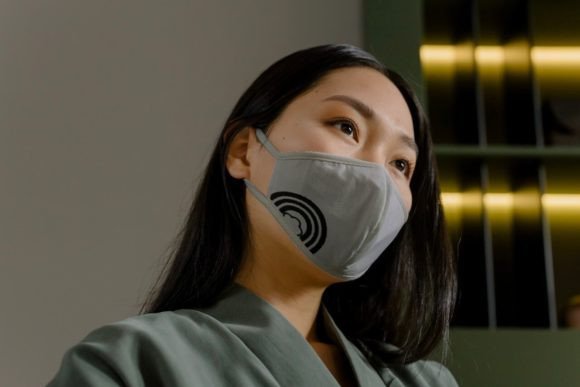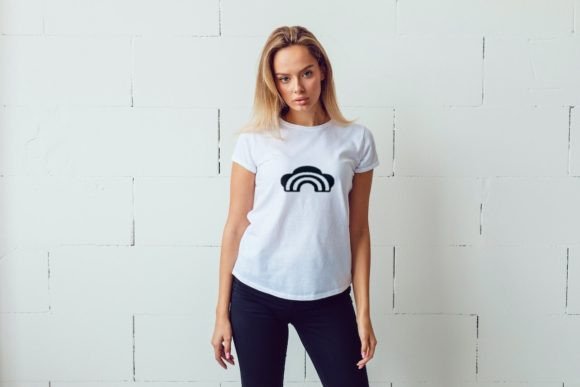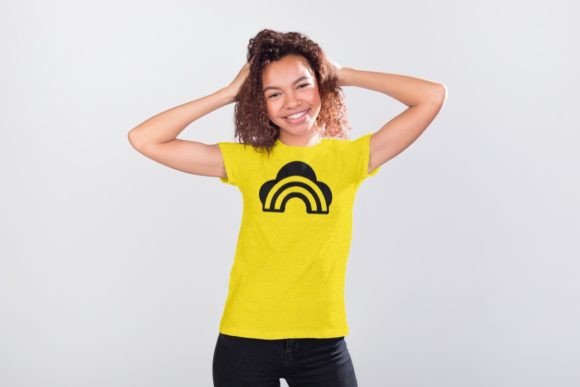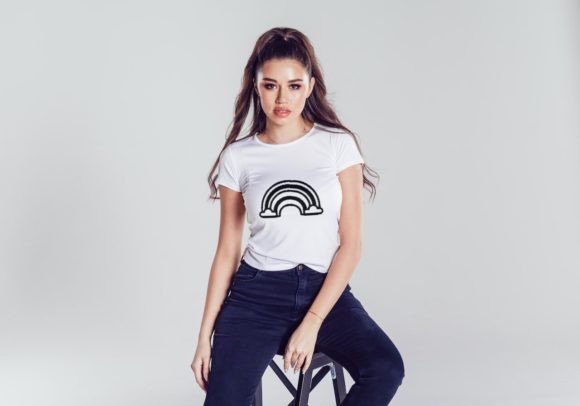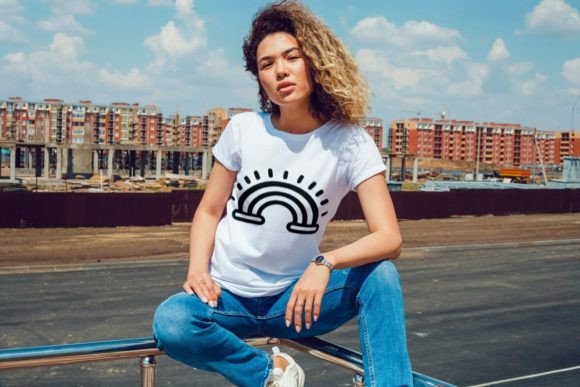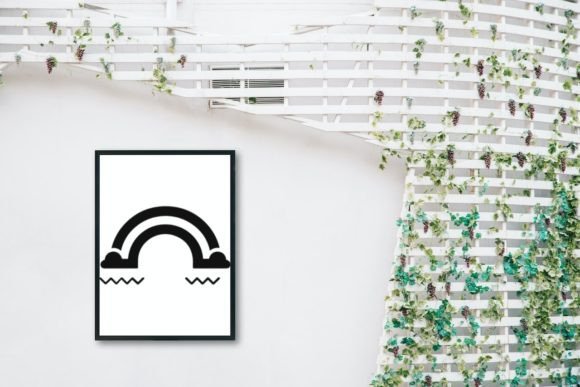
Introduction to Rainbow Journey Font
Embark on a vibrant adventure with 26 captivating capital letters and numbers 0-9.
Key Features of Rainbow Journey Font
Why Choose Rainbow Journey Font?
Rainbow Journey Font offers exceptional quality and versatility, making it a valuable addition to your design toolkit. Whether you’re creating for personal projects or commercial use, Rainbow Journey Font delivers professional results.